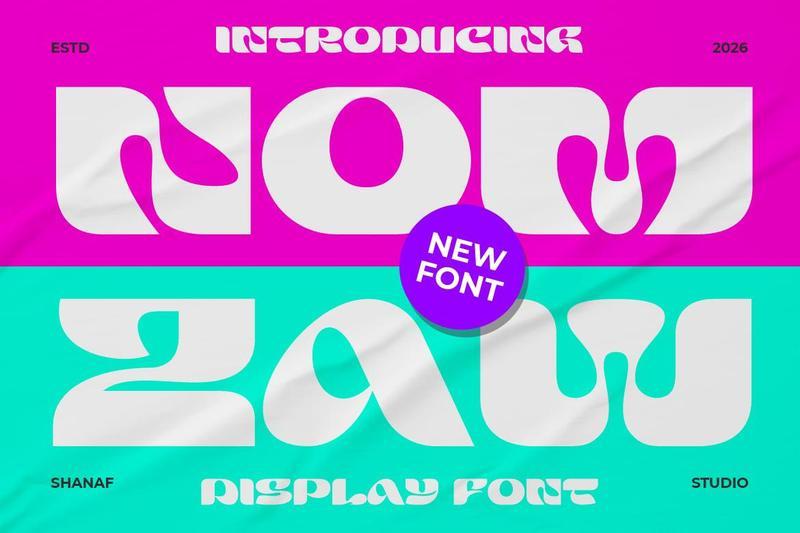
**Nomza Modern Bold Display Font**
Nomza Modern Bold Display Font brings a bold visual voice with chunky, rounded, and experimental letterforms. Each character uses thick weight, soft corners, and playful negative spaces. The shape feels expressive, futuristic, funky, and pop inspired without losing strong headline impact. It works well for logo design, branding, advertising, poster titles, magazine covers, stickers, social media graphics, and product campaigns. This font fits creative studios, music events, youth brands, entertainment projects, digital products, and visual identities that need loud attention.
The font has a wide and heavy structure that creates instant recognition in short words. Its curved cuts and unusual counters add rhythm, movement, and a fresh graphic personality. Designers can use it for campaign headlines, event posters, product labels, promo banners, book covers, card designs, and website hero titles. The style supports pop culture, street visuals, creative advertising, music branding, and digital launch concepts. Nomza Modern Bold Display Font also gives logo projects a strong shape for memorable brand marks.
This font suits more than one creative business category. It can support product branding, music graphics, event promotion, gallery posters, tech campaigns, studio logos, and social media advertising. Its bold personality also works for snack labels, drink campaigns, game titles, magazine layouts, and entertainment branding. Use it when a design needs energy, confidence, and a graphic pop mood. The character set includes uppercase, lowercase, numbers, punctuation, and multilingual support for broader creative use.